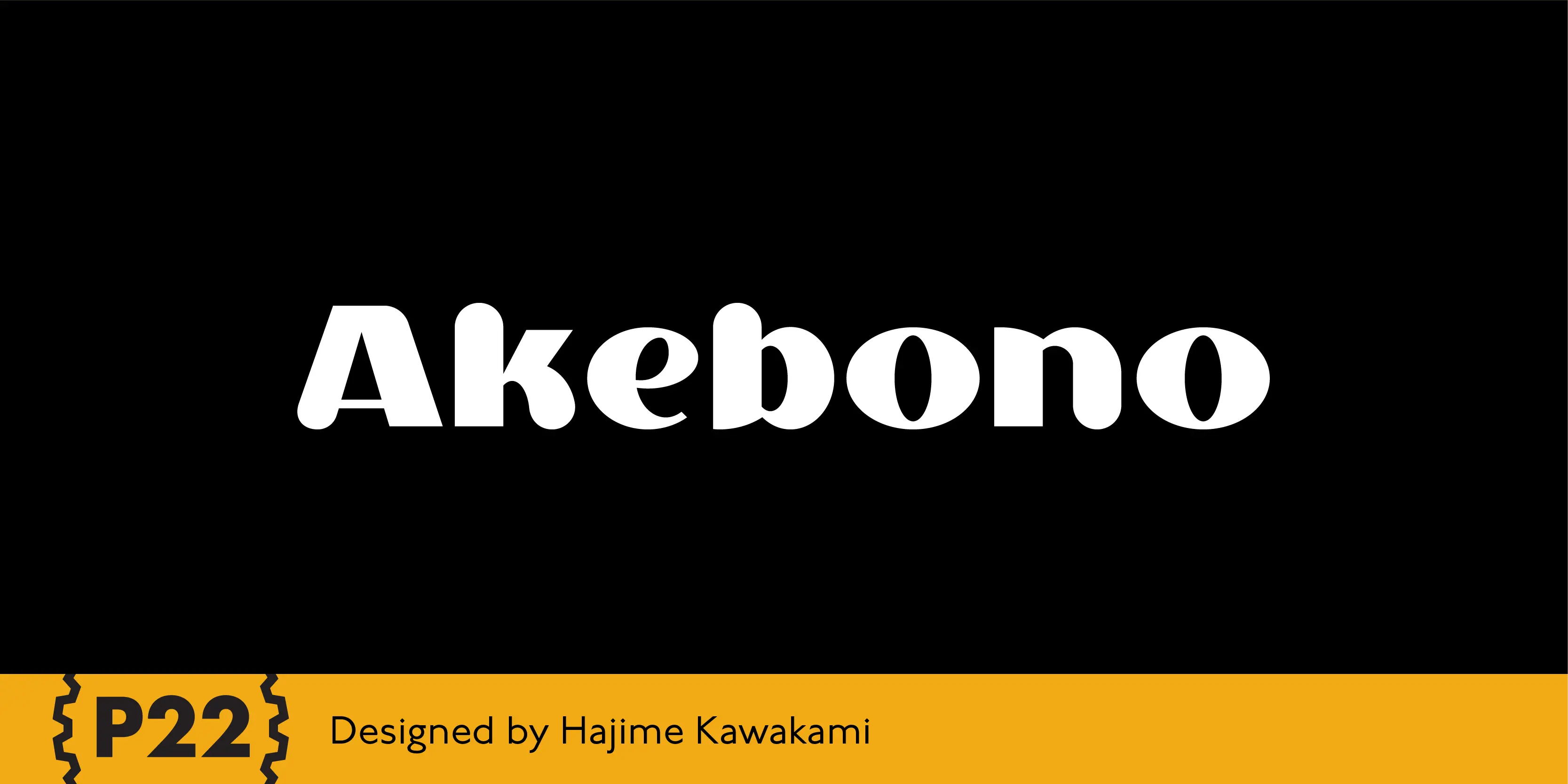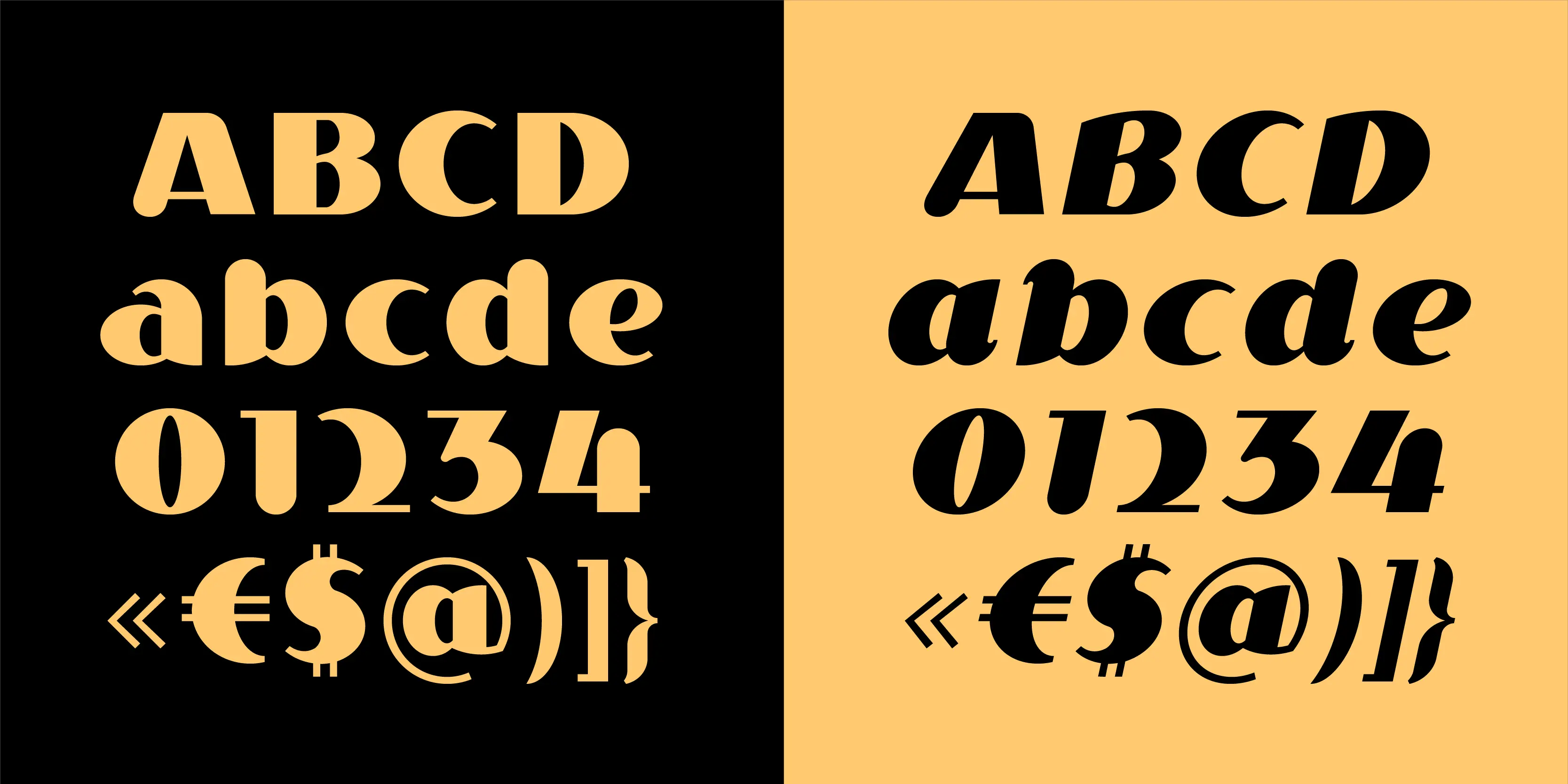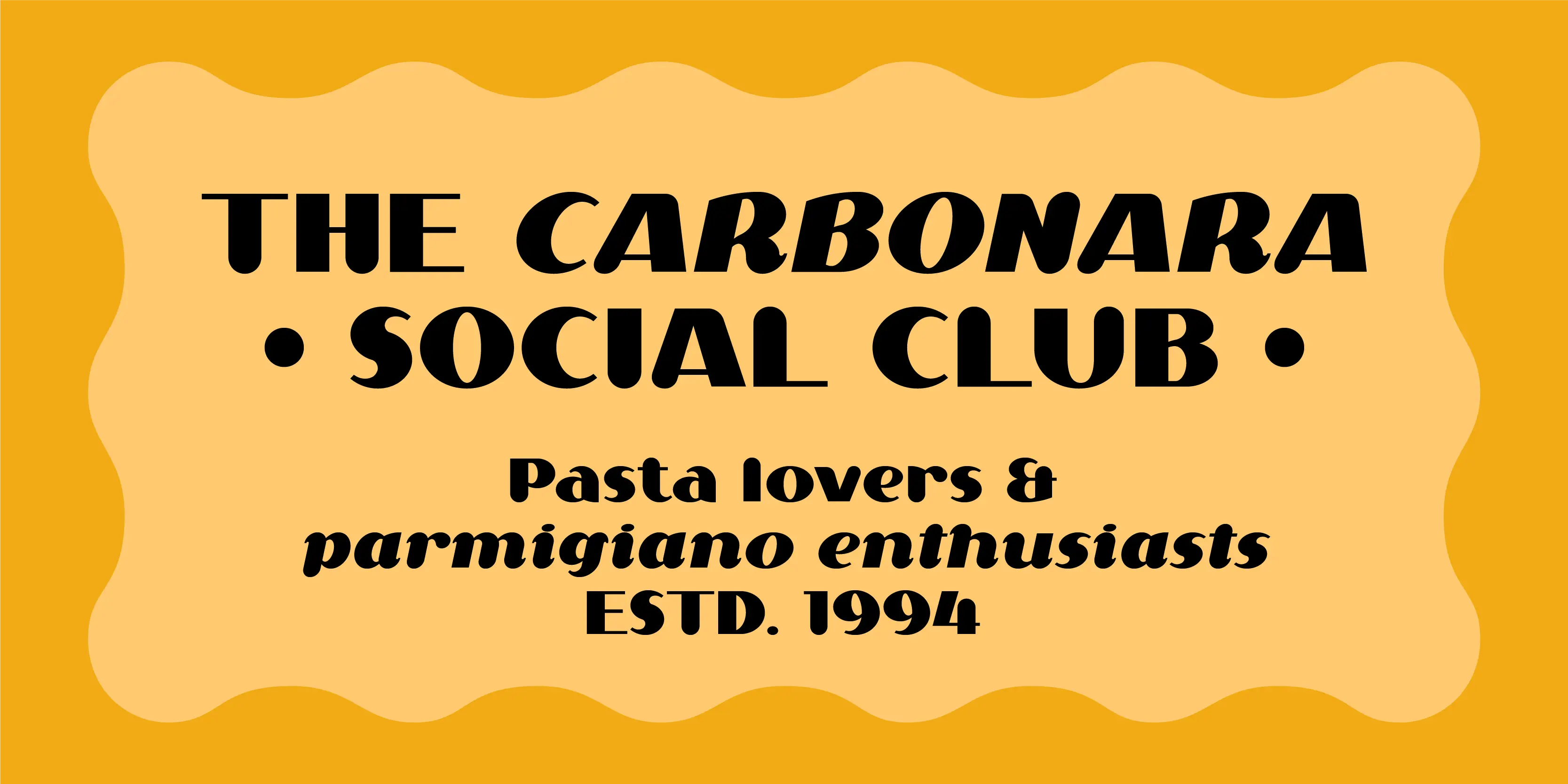
Akebono Font Family
Akebono Alternates
Akebono Regular
Akebono Regular Italic
Akebono
In Japanese, Akebono means dawn. The font expresses the pleasure of imbalance, as the stems and strokes are mixed — straight and round with slender terminals and arches. Akebono is available in three styles: Regular, Alternate, and Italic.
![Akebono font by P22 Type Foundry — the letters A, B, C, D, a, b, c, d, e, the numbers 0, 1, 2, 3, 4, and the symbols ", ", ", ", ", ", @, ), ], and } in both upright and italic sans-serif forms](https://typographer.io/1/assets/p22:akebono/banner-2.webp:size(3334,1667)?a255)